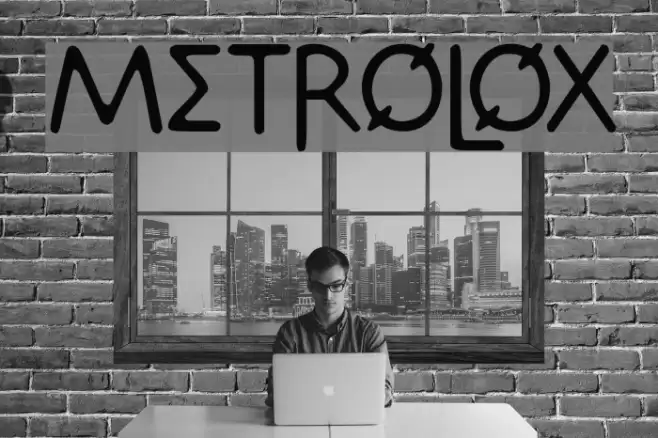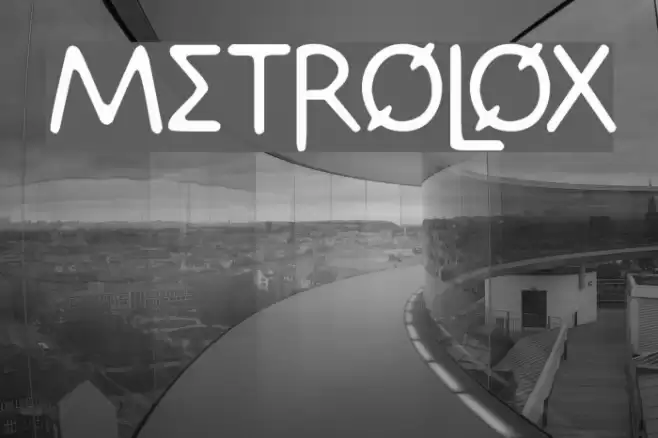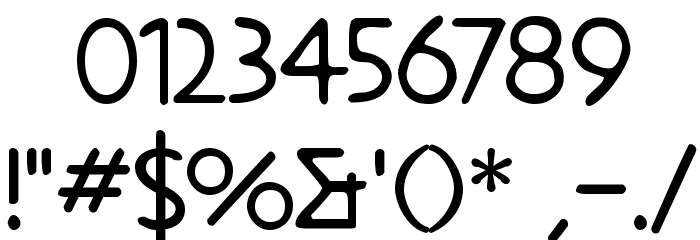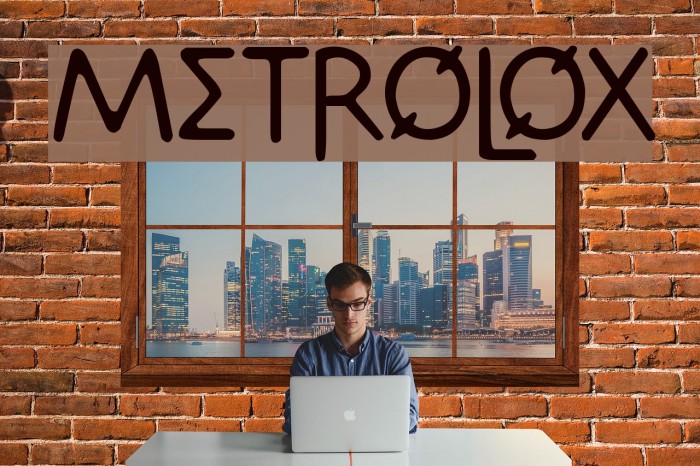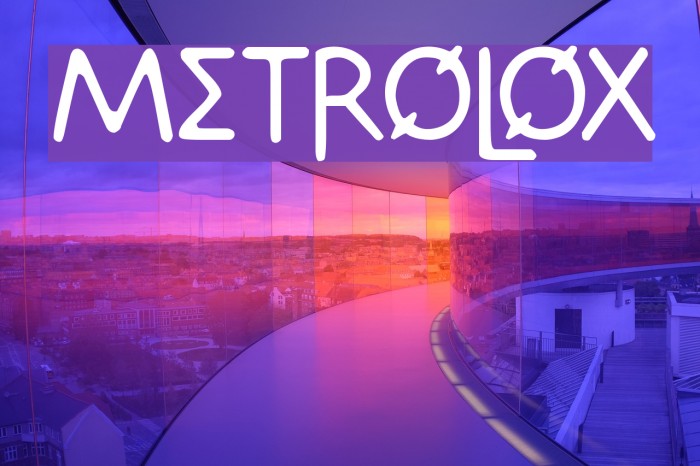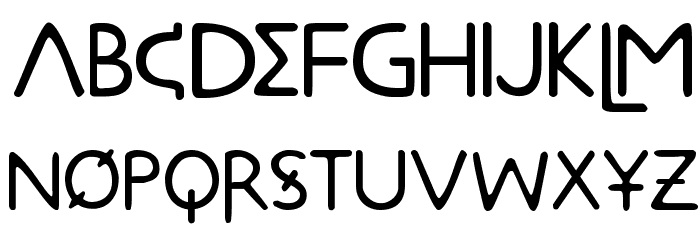
Metrolox Font
Metrolox Description
This font features a modern, geometric design with a distinct futuristic flair. The characters are composed of clean, rounded lines and sharp angles, creating a unique blend of simplicity and complexity. The uppercase letters exhibit a consistent height and width, while the lowercase letters maintain a similar style, ensuring uniformity across text. The numbers are bold and easily distinguishable, with a slight curvature that complements the overall aesthetic. Special characters are crafted with the same attention to detail, making them seamlessly integrate with the rest of the font. This typeface is ideal for projects that require a contemporary and innovative look.
A modern, geometric font with a futuristic and clean design from Uncategorized fonts.
- Proposed Projects: Ideal for tech branding, futuristic posters, digital interfaces, and modern advertising campaigns.
- Overall Style: Futuristic
- Use Case: Logos, Headlines, Digital interfaces